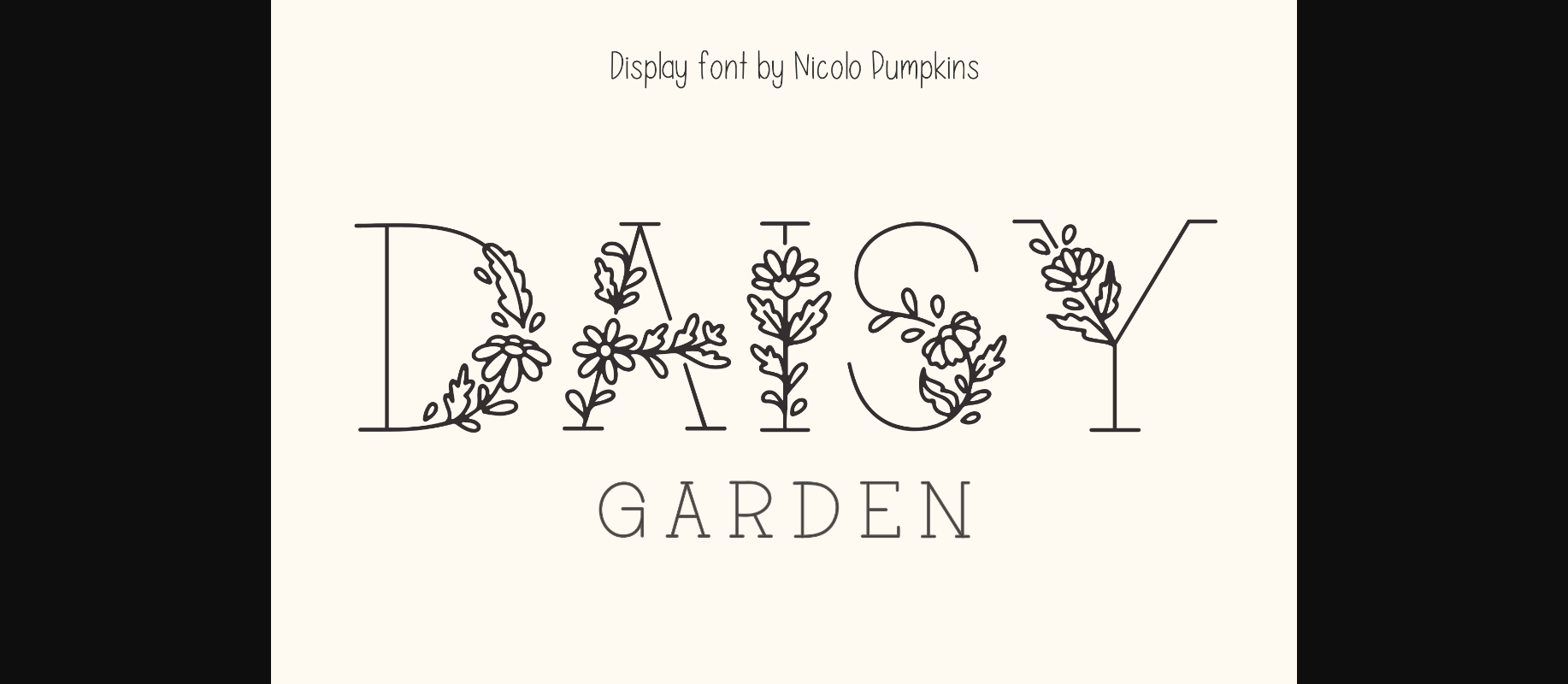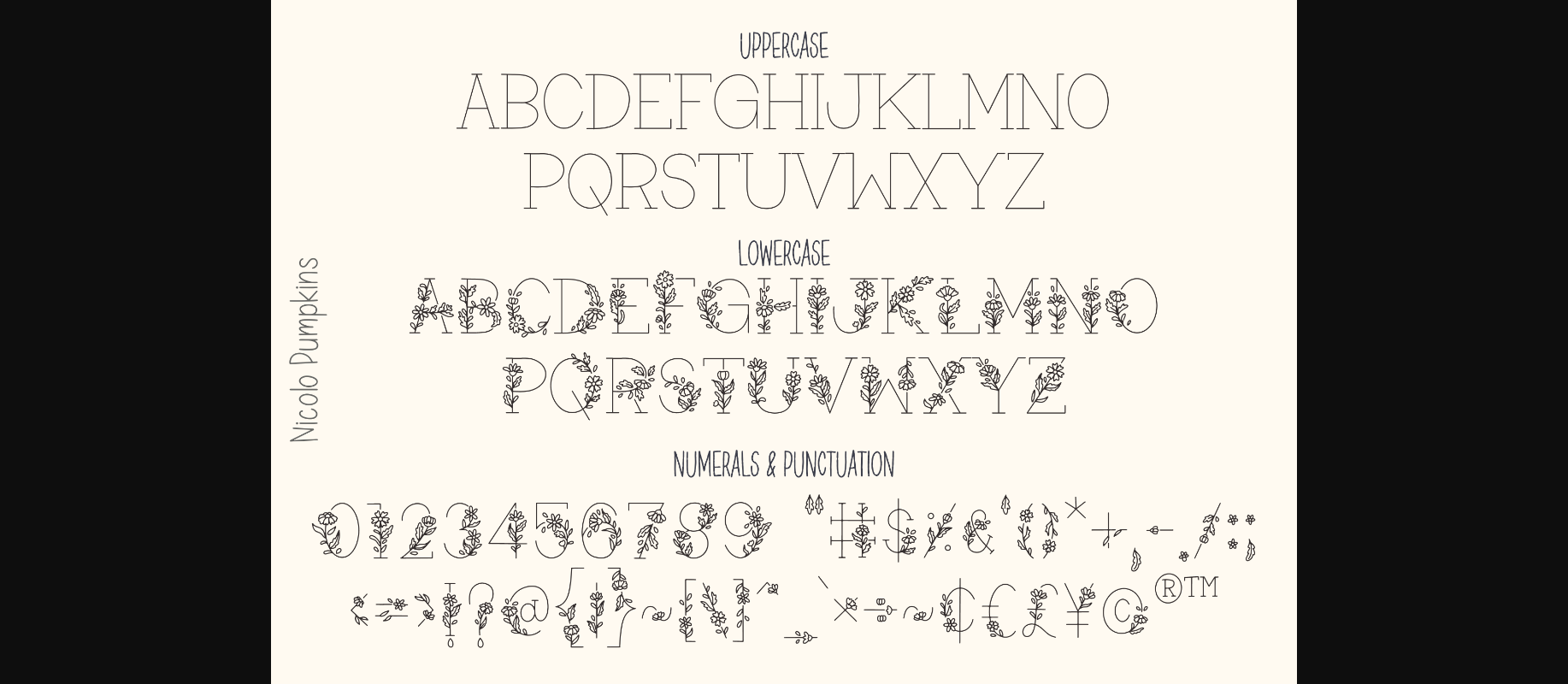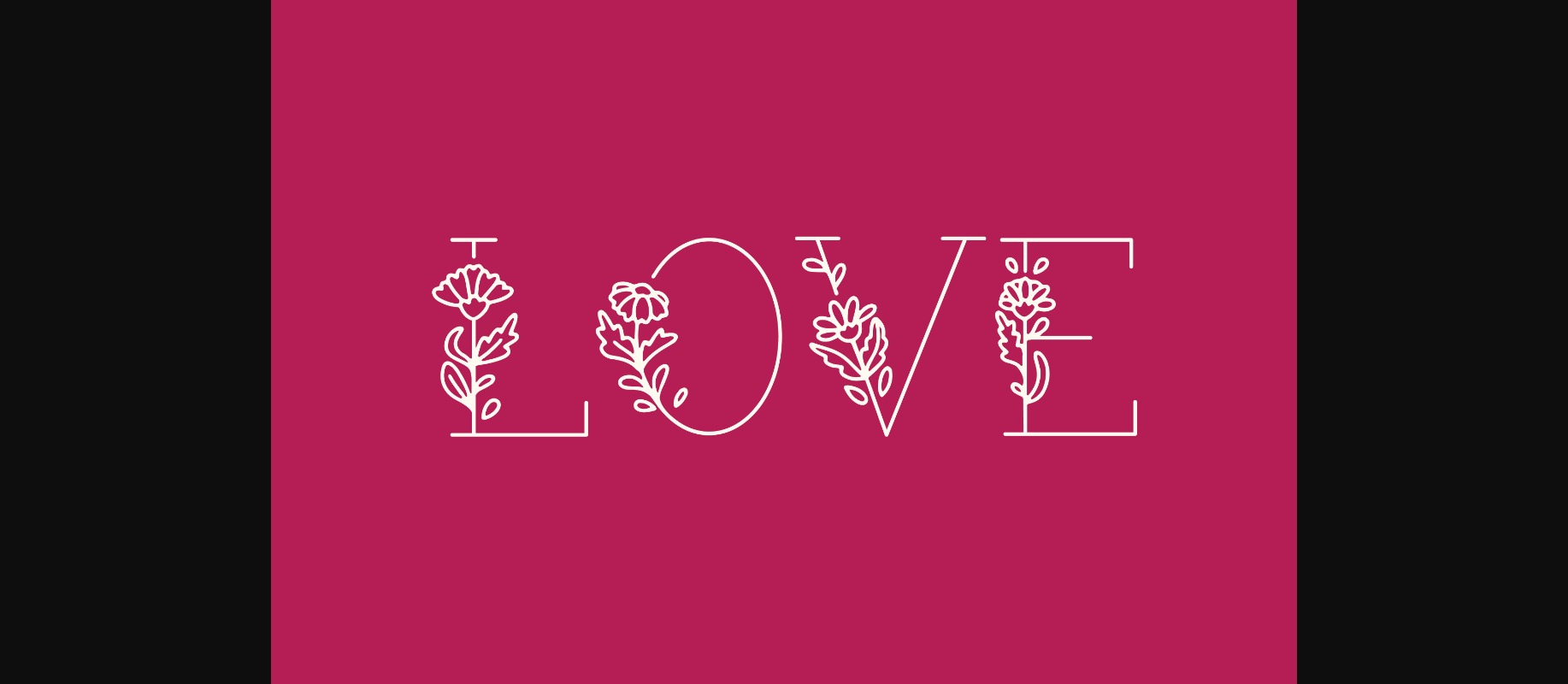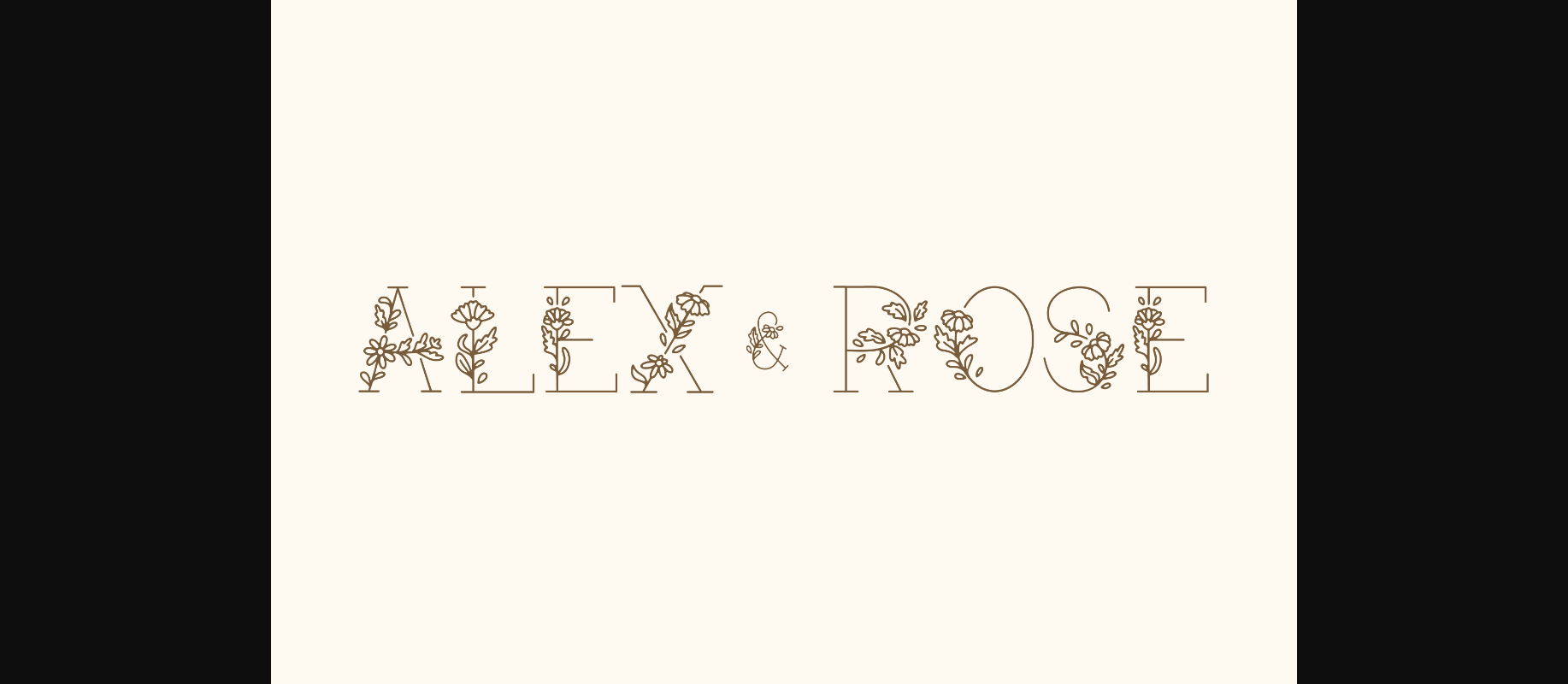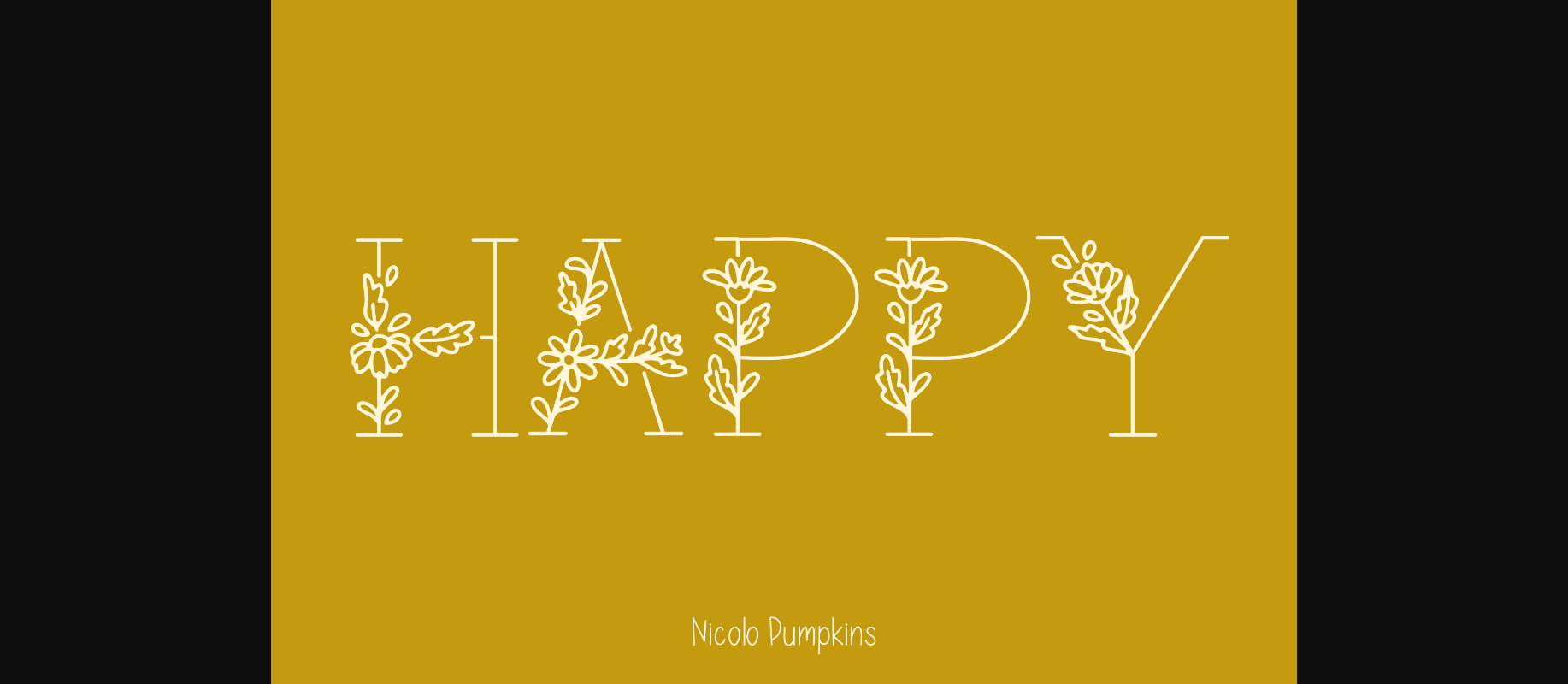
About Daisy Garden Font
Daisy Garden is a minimal modern daisy decorative font suitable for designing T-shirts, tote bags, hats, stickers, wedding invitations, logos, cards, quotes, and more! This is a minimal font that is perfect for classic and wedding designs.